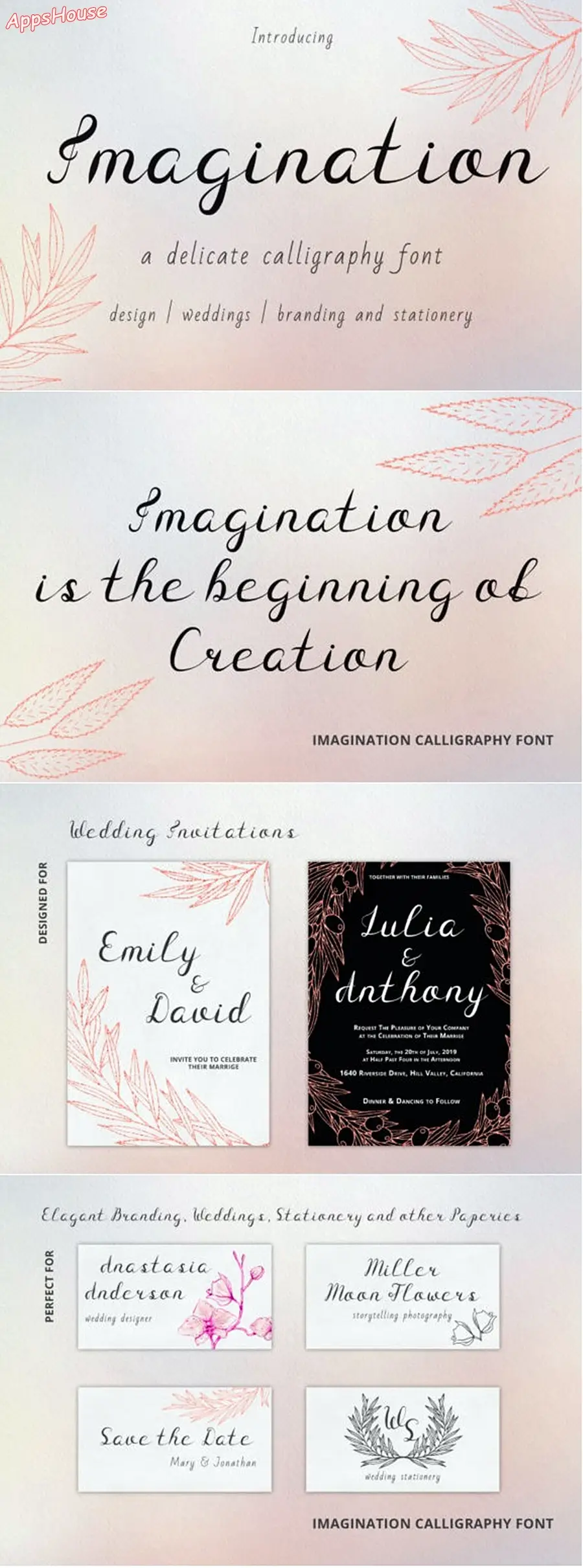
The Imagination Calligraphy Font is a beautifully crafted typeface that brings elegance and creativity to your projects. With its flowing lines and artistic flair, this font is perfect for a variety of applications, from wedding invitations to branding materials.
- Stylish calligraphy design
- Supports multilingual characters
- Includes stylistic alternates
- Weights: Regular, Bold
- Ideal for logos, branding, and print materials
- Great for digital designs and social media graphics
- Use in combination with sans-serif fonts for a modern look
Imagination Calligraphy Font